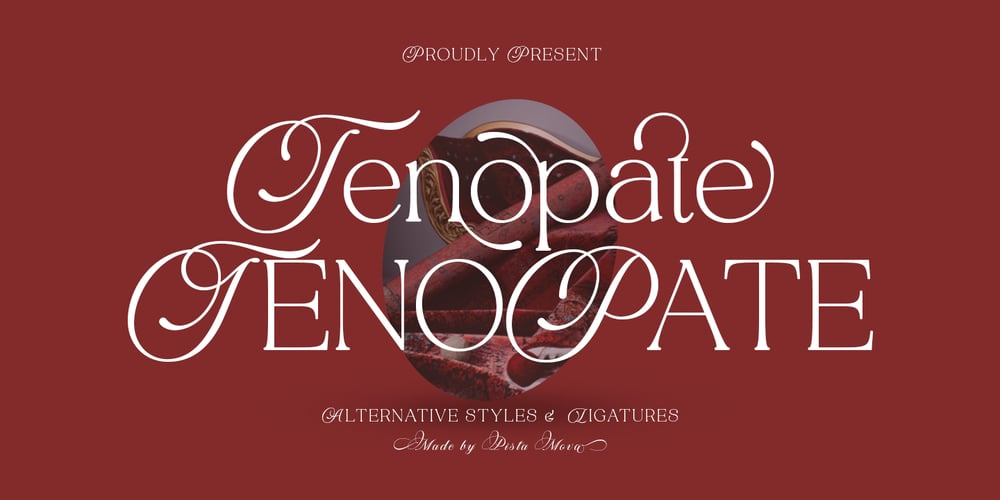
Tenopate Font Family was designed by Haikal Juanda and published by Pista Mova. Tenopate contains 2 styles and family package options. Tenopate is a beautiful and uniquely inspiring blend of classic calligraphy and modern serifs. comes with 2 versions regular & italic.Tenopate is created primarily for headlines, headlines and other short texts and is perfect for advertising, vintage mood boards, branding, logotypes, packaging, titles, editorial designs, modern logos, websites, social media quotes, wedding branding, modern and design antique.What do you get:-Tenopate Regular-Tenopate SlantAccessible in Adobe Illustrator, Adobe Photoshop, Coreldraw, even works in Microsoft Word. PUA Coded Characters – Fully accessible without additional design software. Fonts include multilingual support.Images used : All photos/images/vectors used in the preview are not included, they are intended for illustrative purposes only.Feel free to follow, like and share. Thank you very much for visiting my shop!